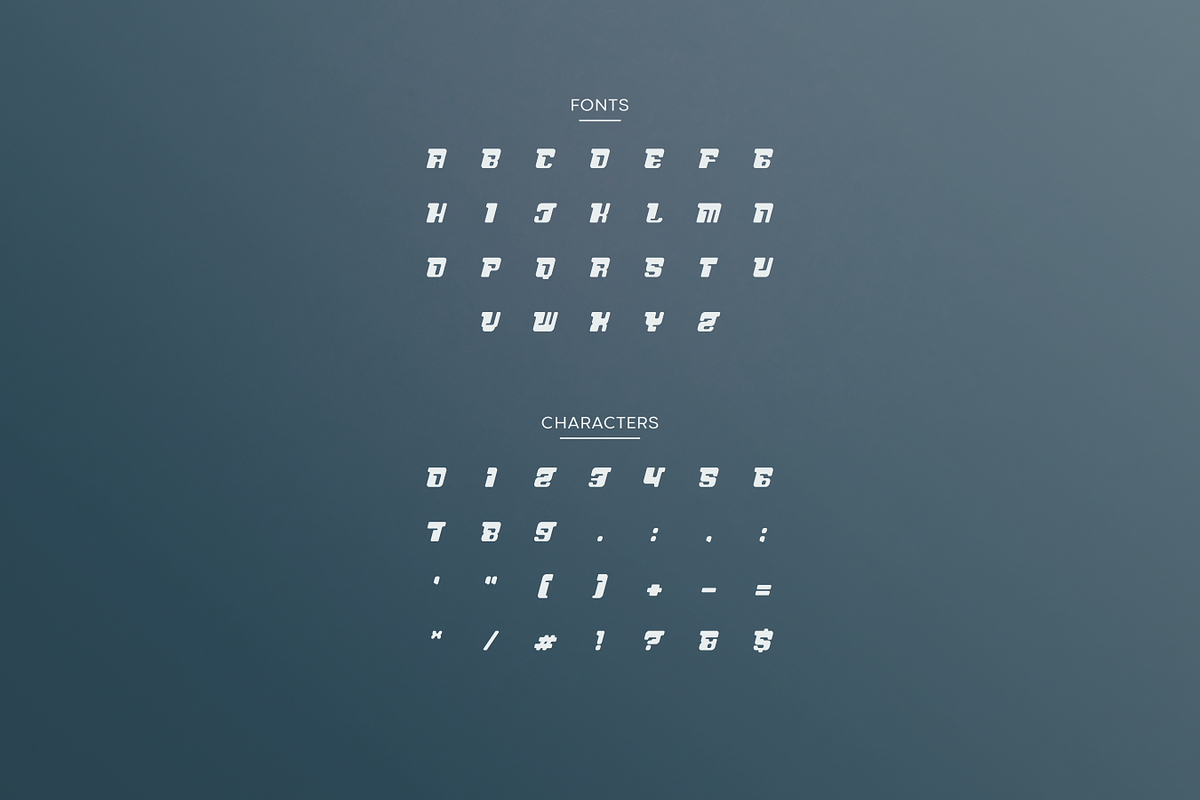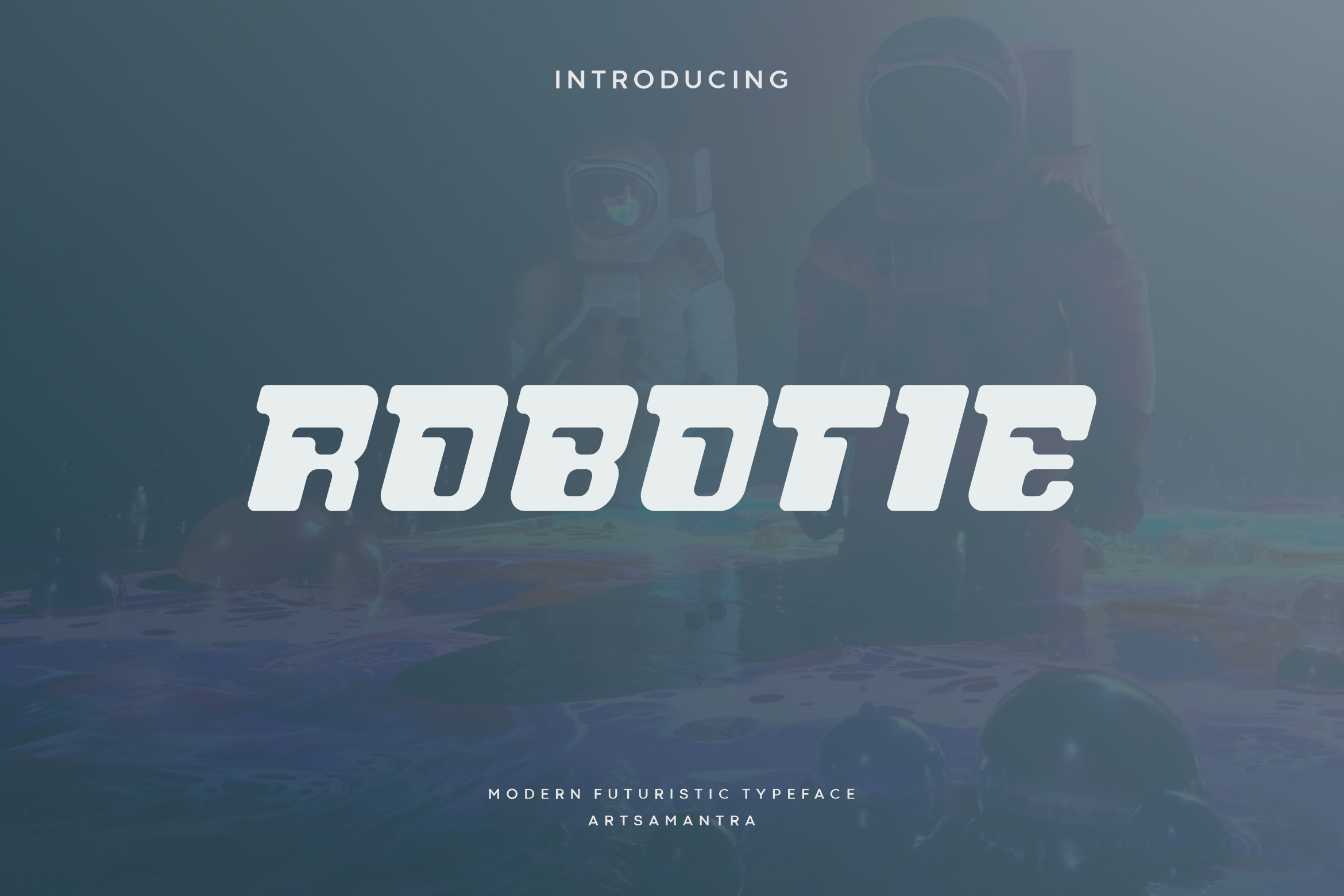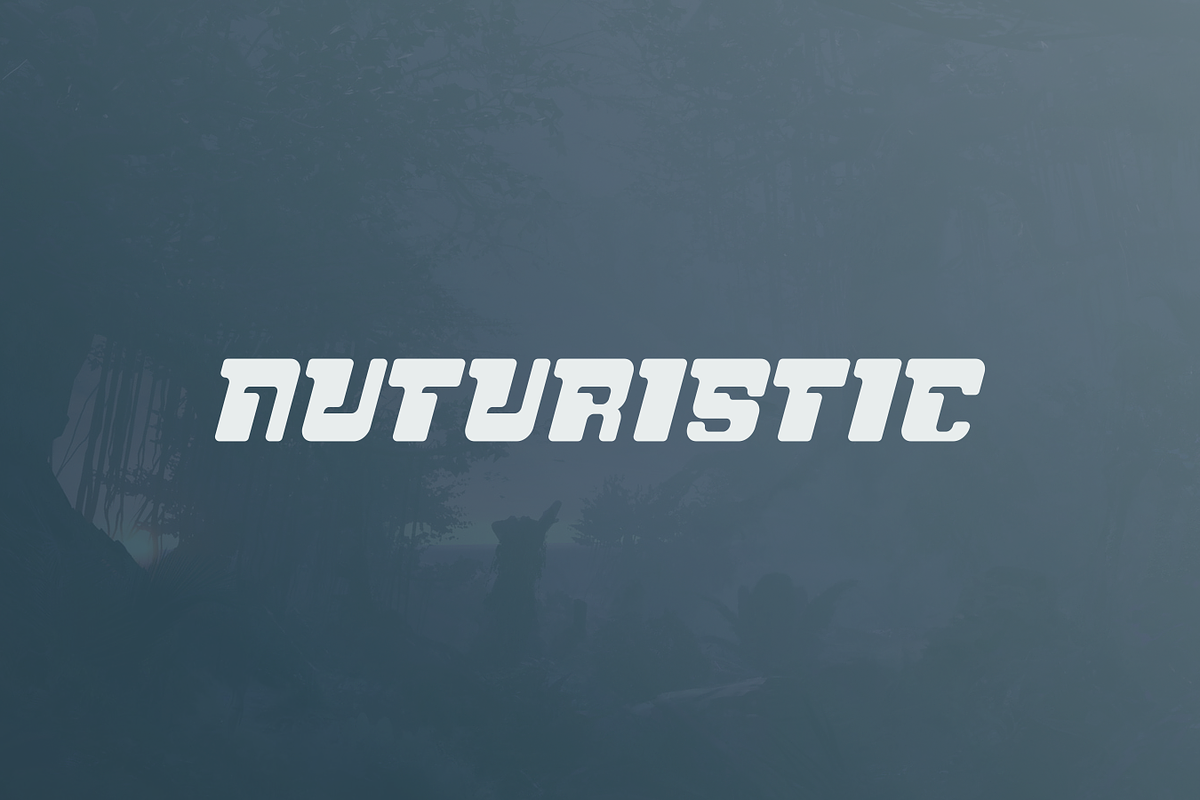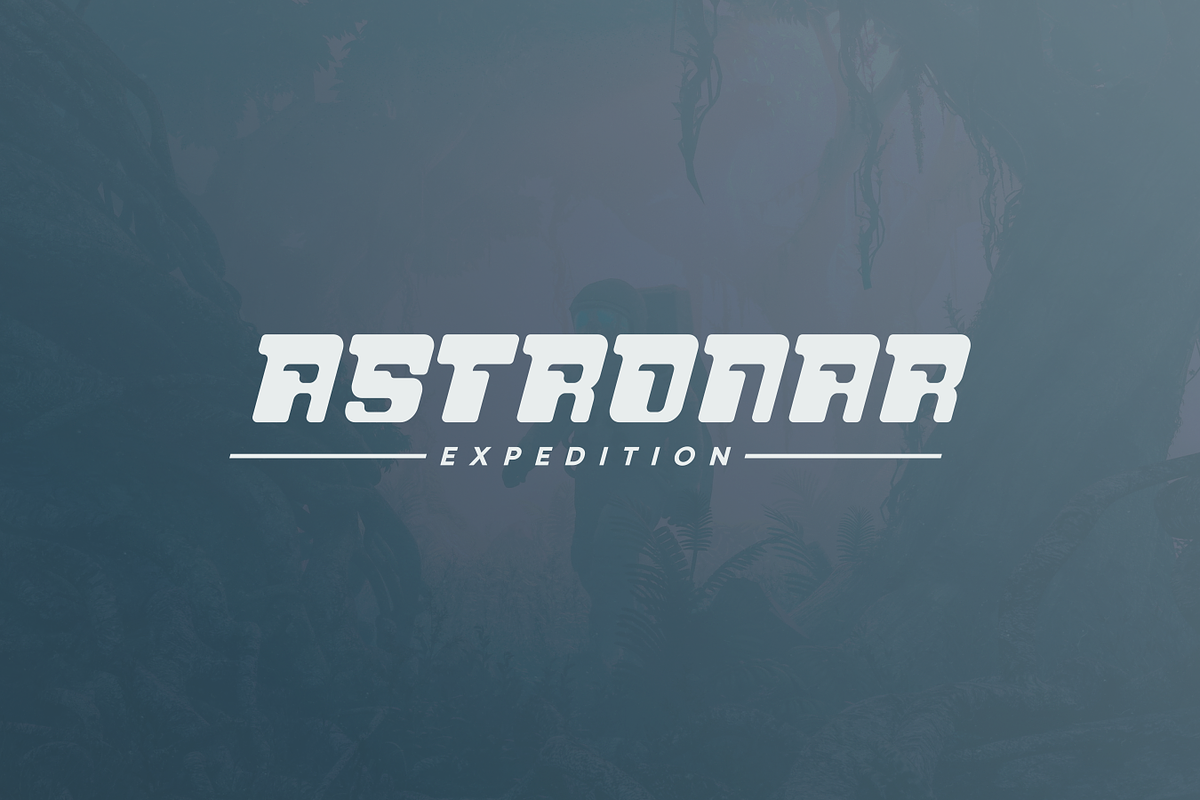
Robotie - Futuristic Typeface
Robotie is a futuristic font, a font inspired by the visual of technology that we can find from logo, sci-fi movies, games, and the present gadgets. Designed with minimalist style and unique letterforms, a perfect choice to use on logo, label, poster, packaging, book, movie, presentation, game, and much more! Robotie complete with some elegant touch that give your design looks more futuristic and dynamic.